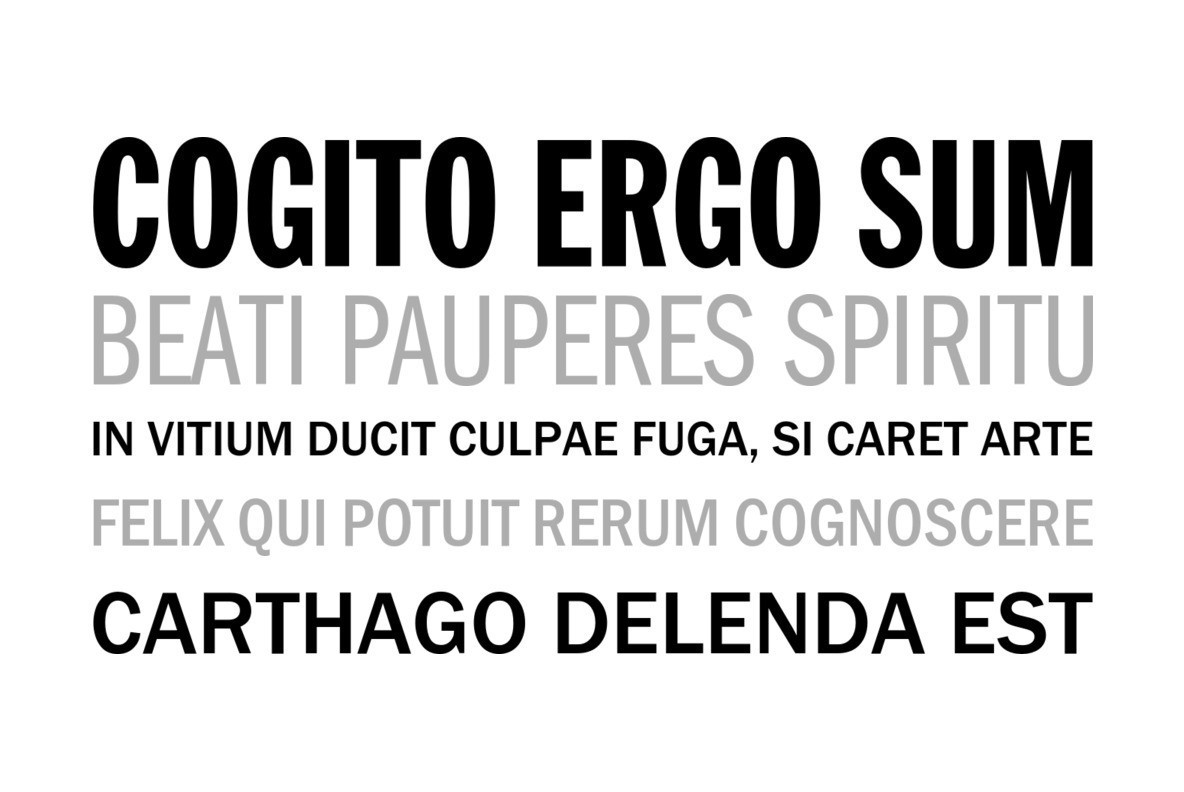
URW Franklin Gothic Font Family
This is URW’s digitization of the famous Franklin Gothic, the realist sans-serif typeface originated by Morris Fuller Benton in 1902. The typeface continues to be seen in many high-profile situations, from books to billboards, was featured on the cover of Lady Gaga’s second album, The Fame Monster, is the official typeface of the Museum of Modern Art in New York, and was even the resident typeface of the PBS series The Electric Company. Franklin Gothic Condensed was also used for subtitles in the Star Wars films.